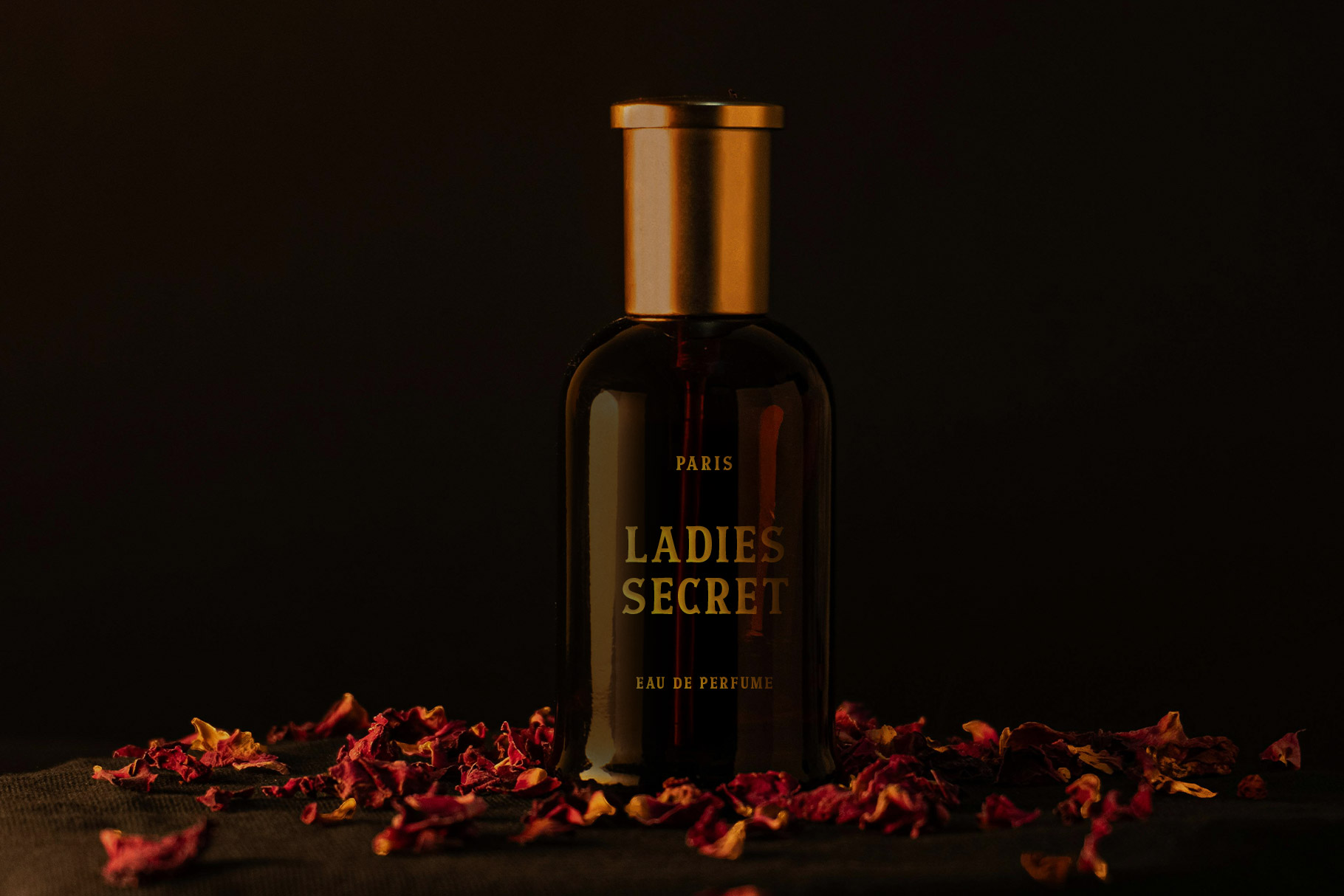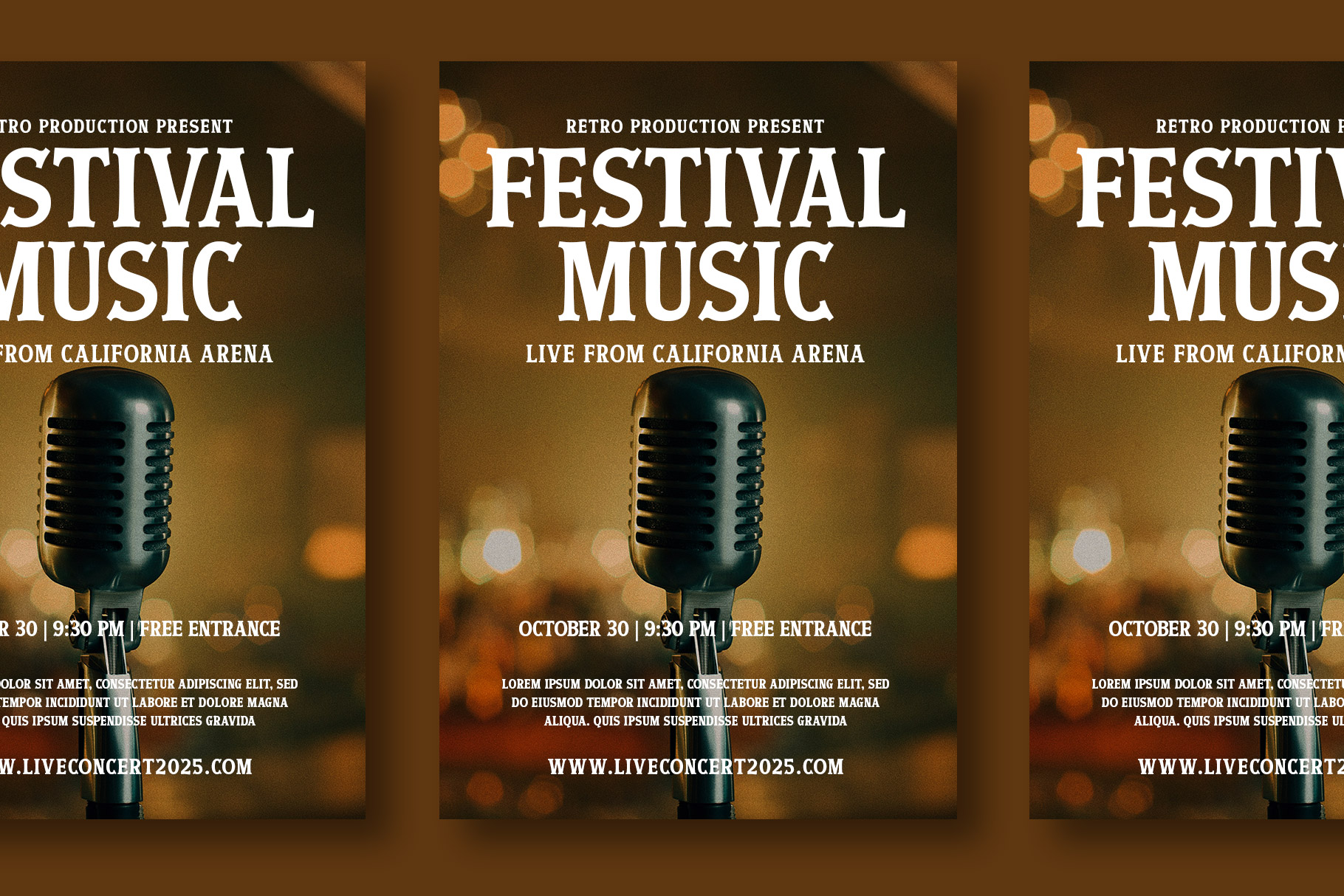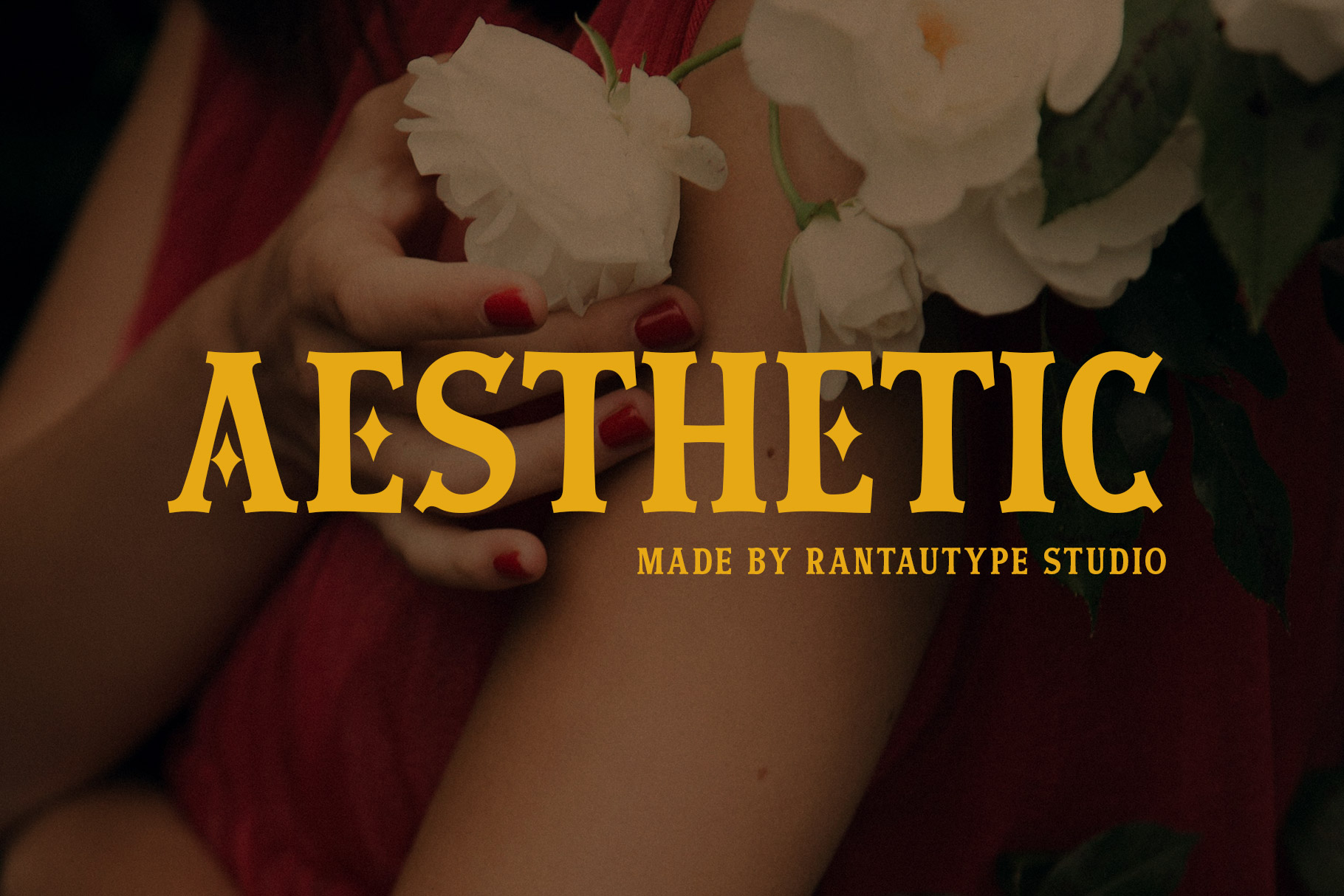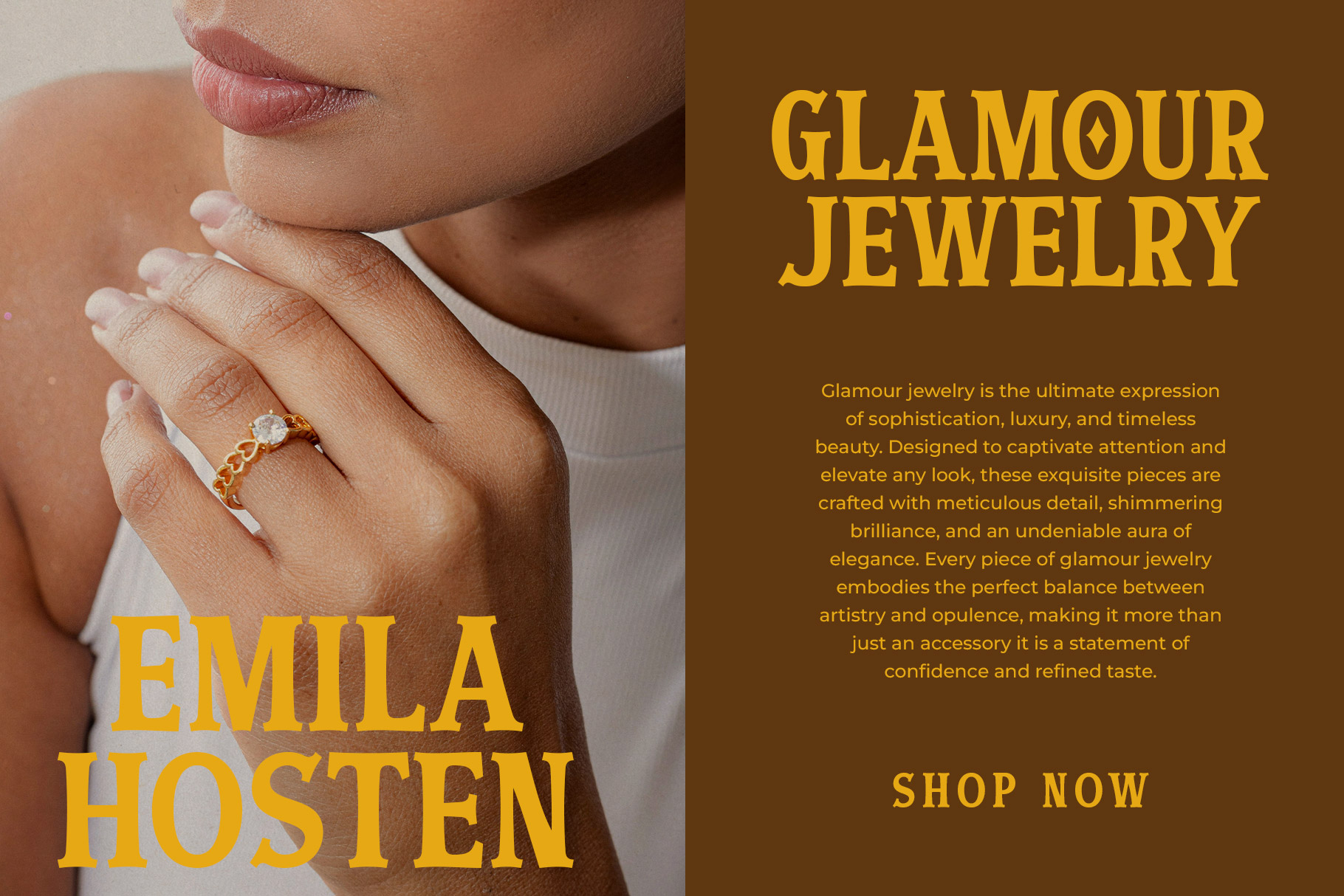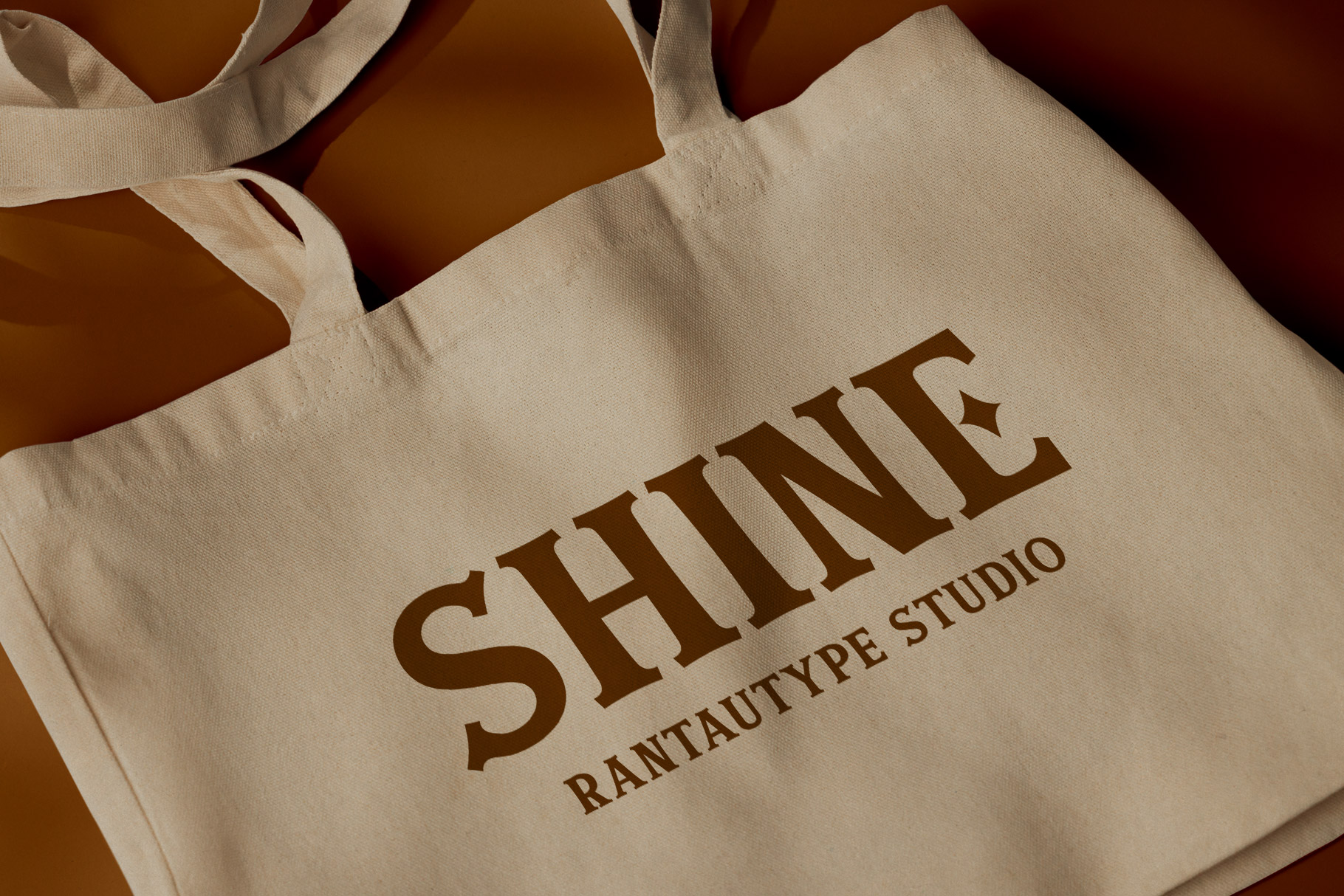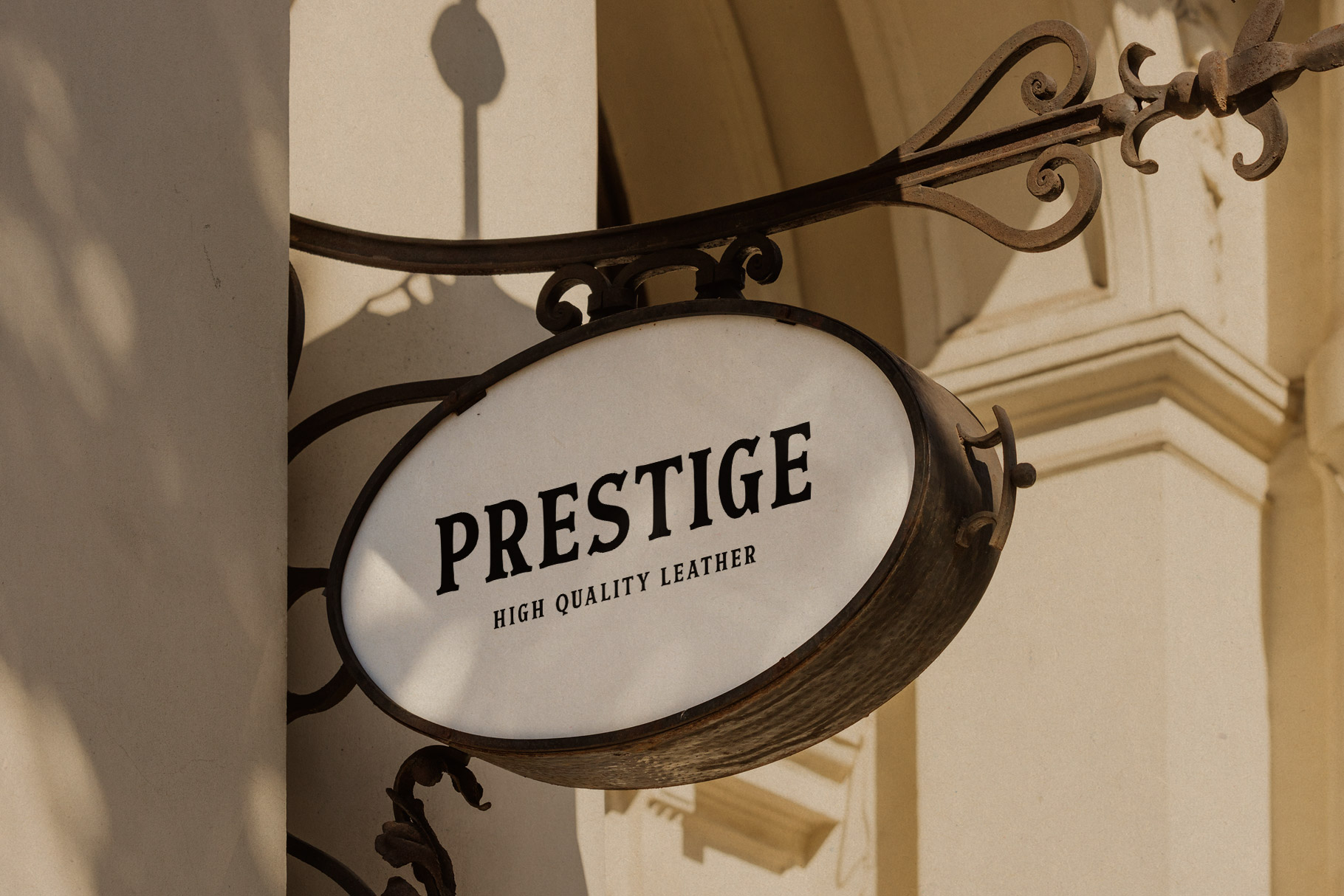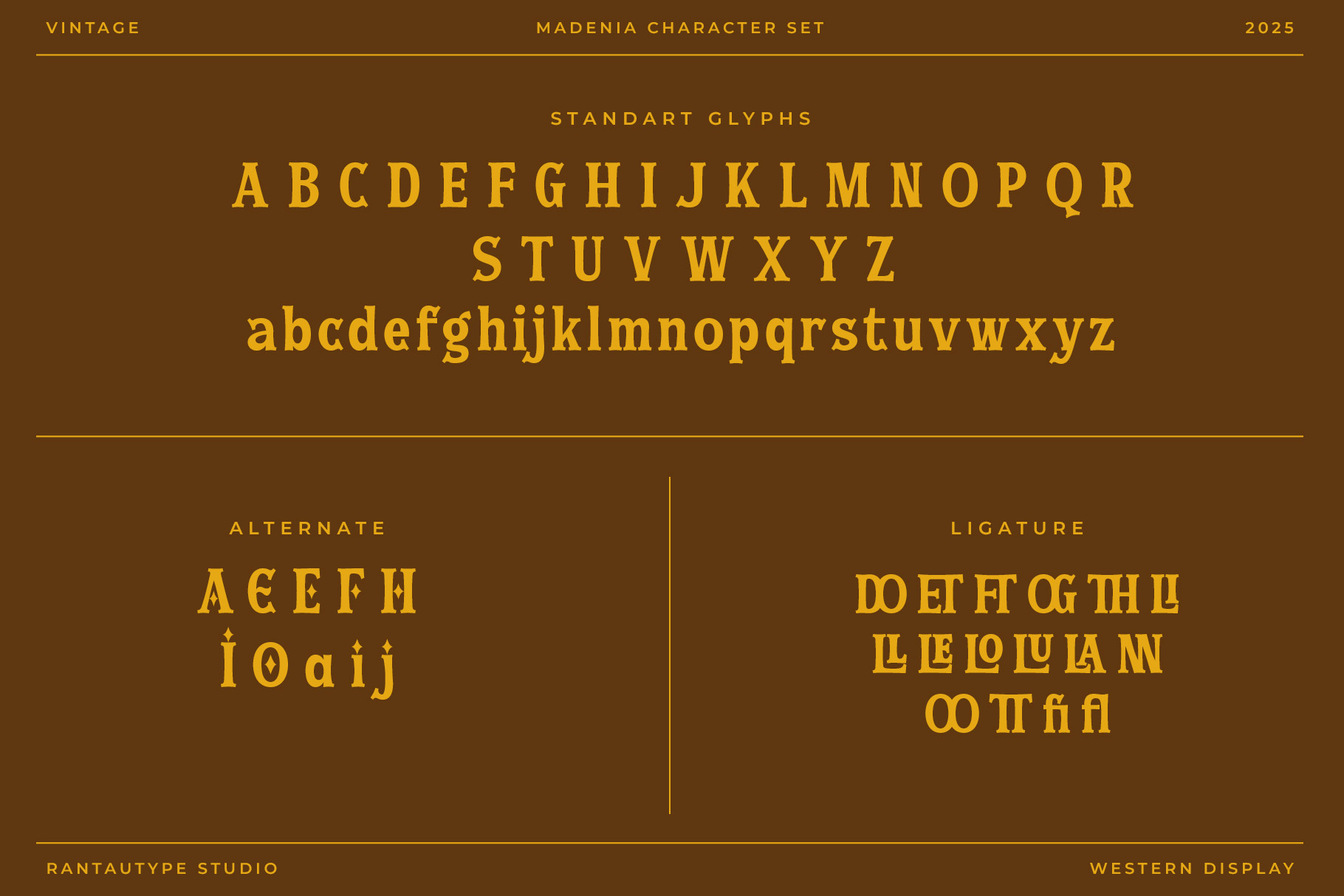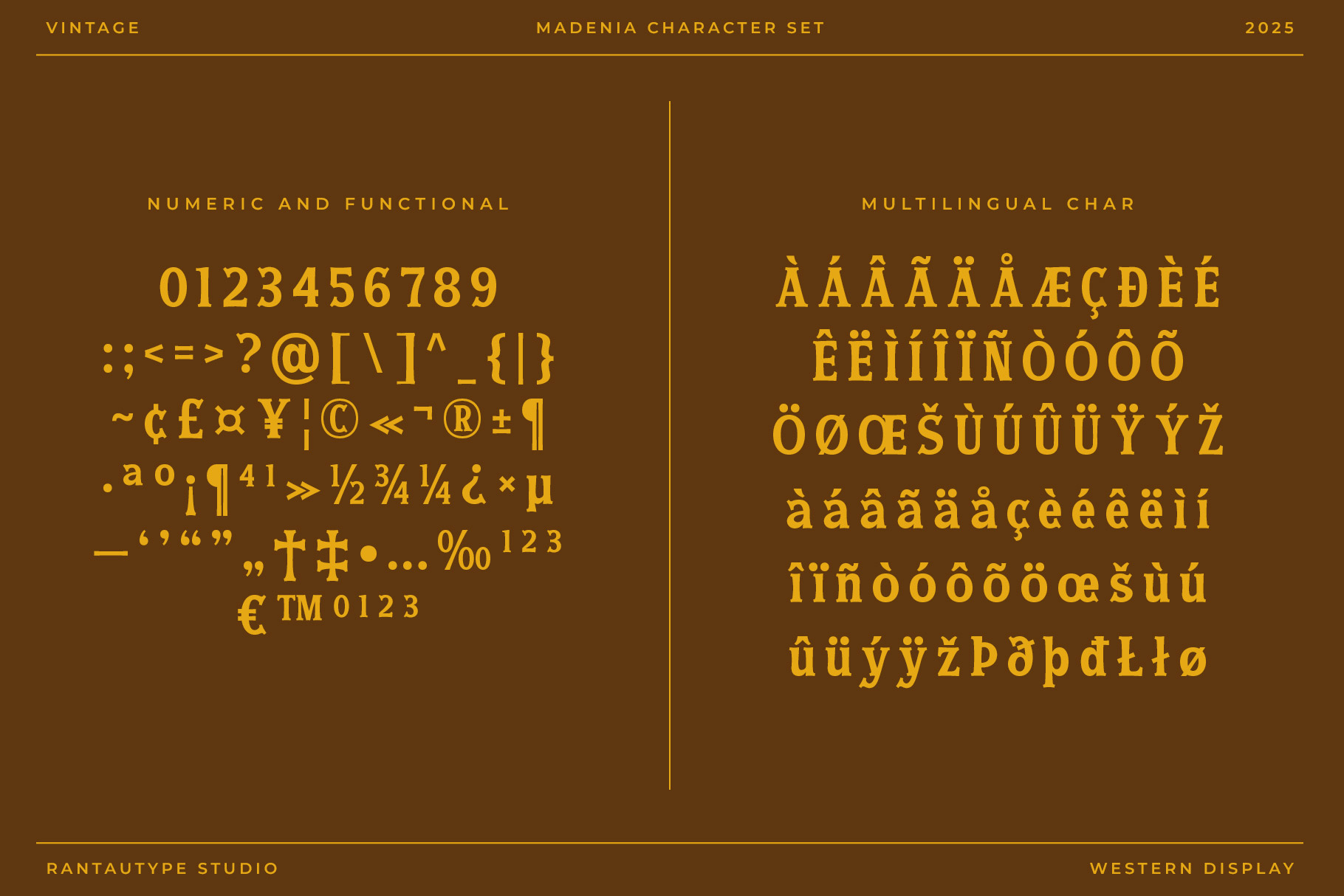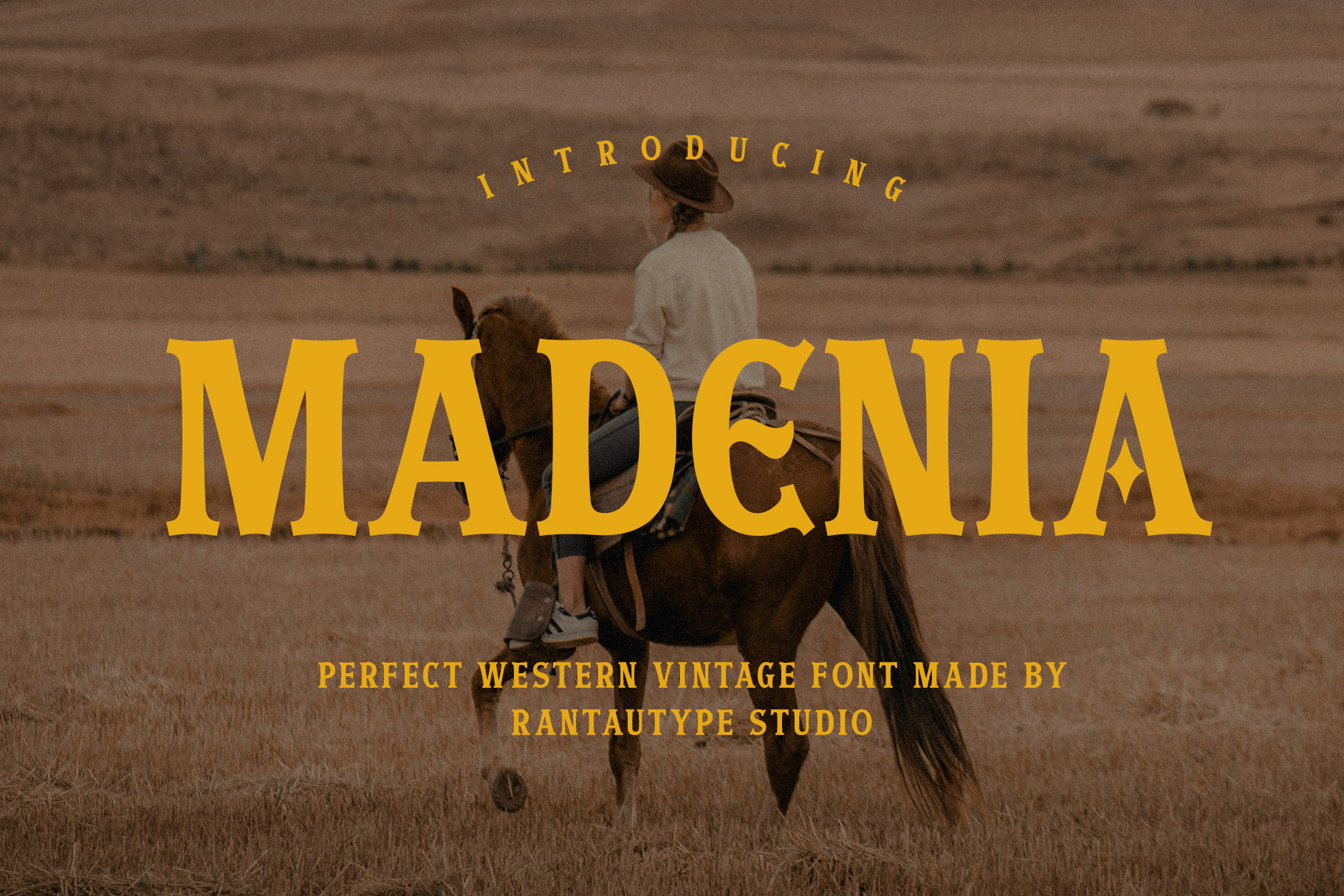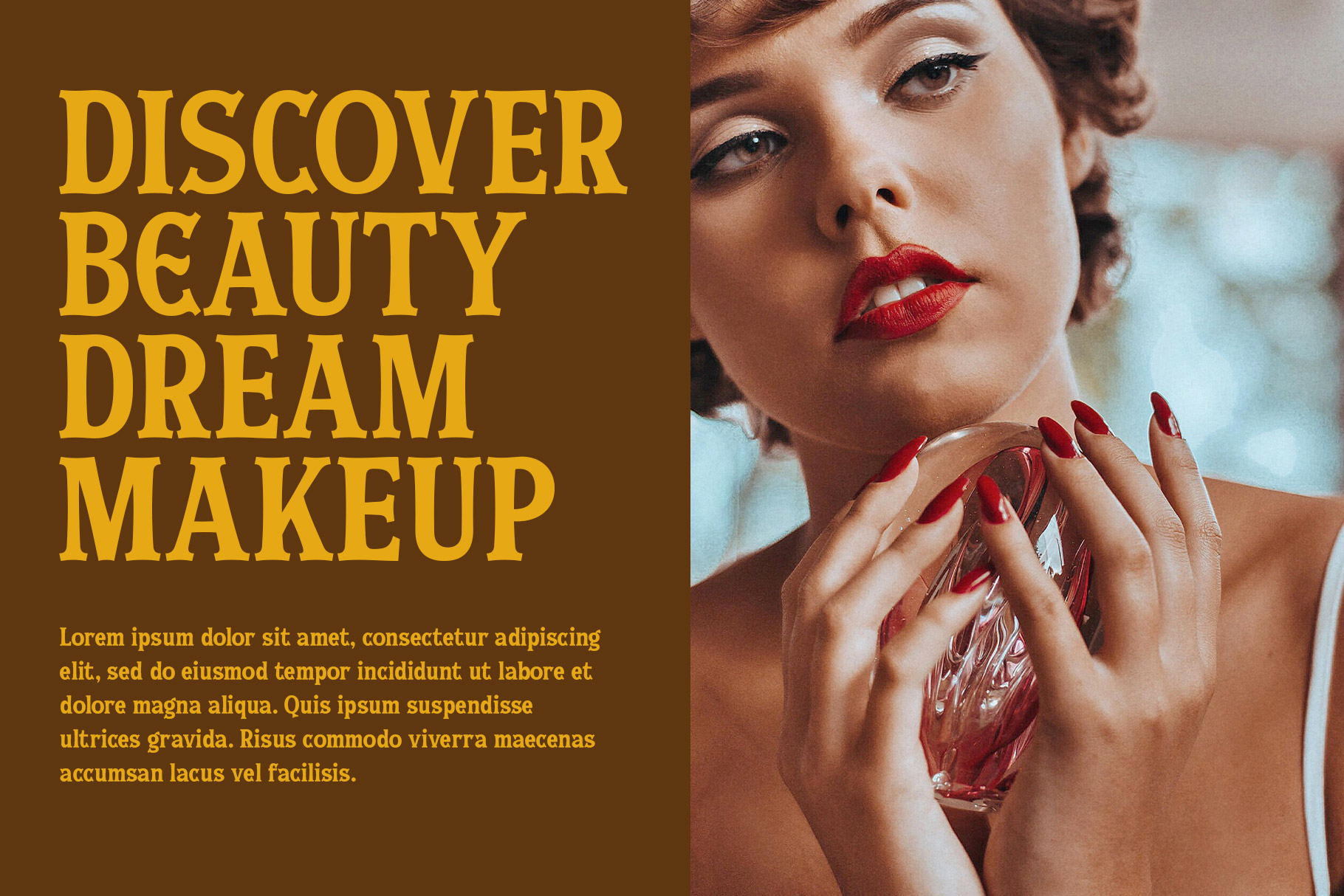
Madenia Western Display Font
Madenia is perfect western font with bold character and vintage charm of the American frontier era. Inspired by 19th-century typography seen on saloon signs, wanted posters, and old railway stations, this font style instantly transports viewers to a time of cowboys, outlaws, and dusty desert towns. Madenia is a perfectly choice for any creative endeavor, chic, lifestyle design such as logotype, advertisements, watermark on photography, stationery, branding project, display and magazine, invitation, corporate brand, product design, label, business project and many other project with western touch.